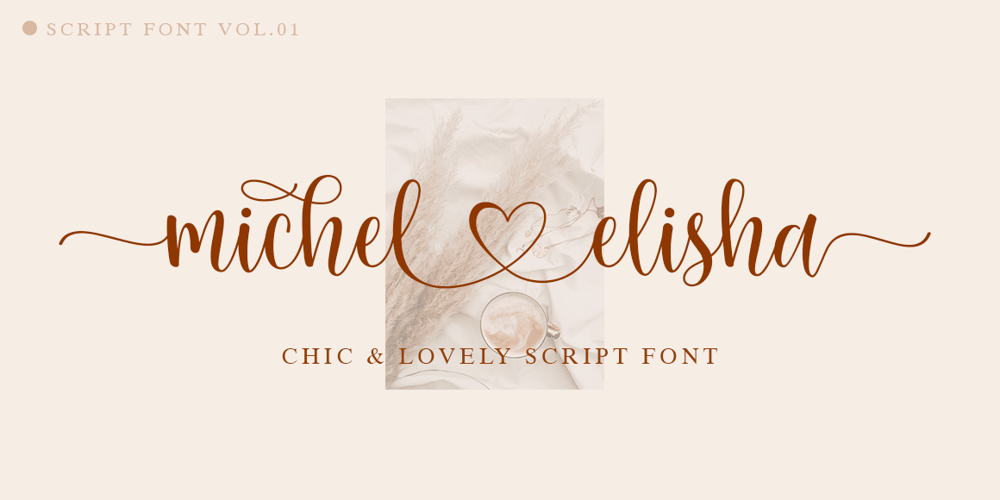
Michel Elisha Script
Michel Elisha Script font
Michel Elisha Script Font Family was designed by Fajar Gunawan and published by Fargun Studio. Michel Elisha Script contains 1 styles and family package options. Michel Elisha Script! A new fresh and modern hand lettered font with decorative characters and a dancing baseline. So beautiful on invitation like handicraft, greeting cards, branding materials, business cards, quotes, posters, and more design concepts.Features : Unique ligatures Unique Alternates Stylistic sets Basic Latin A-Z and a-z Numbers International Symbols included Punctuation Please send a message if you have questions or problems, and don’t hesitate to say hello on Instagram https://www.instagram.com/fargunstudio/Thank you.